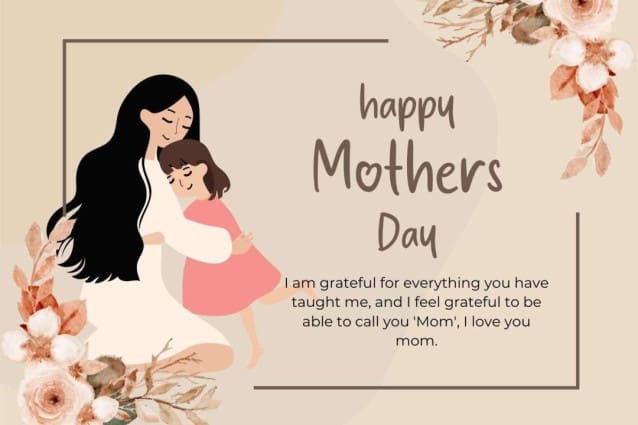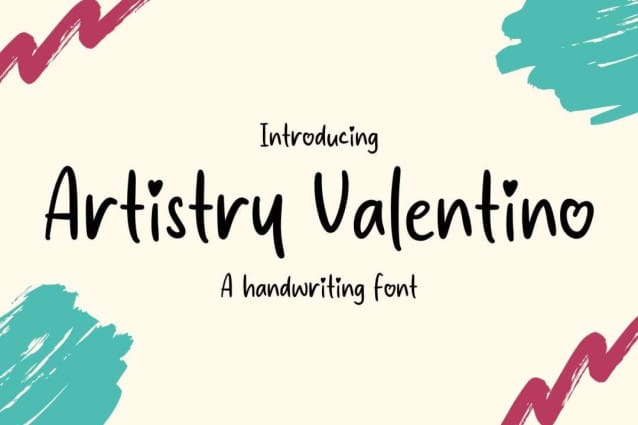
Artistry Valentino Font
Artistry Valentino Font is a simple and friendly handwritten font. Its natural and unique style makes it incredibly fitting to a large pool of designs. The only limit is your imagination!